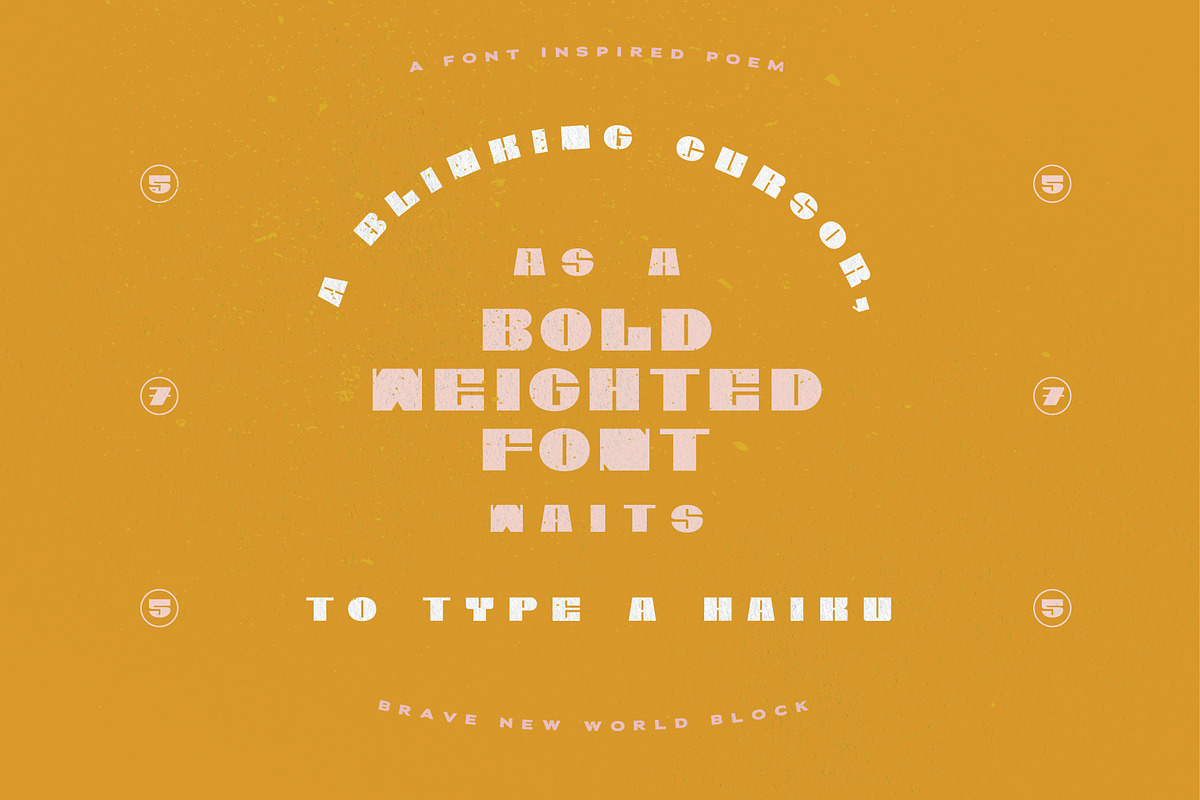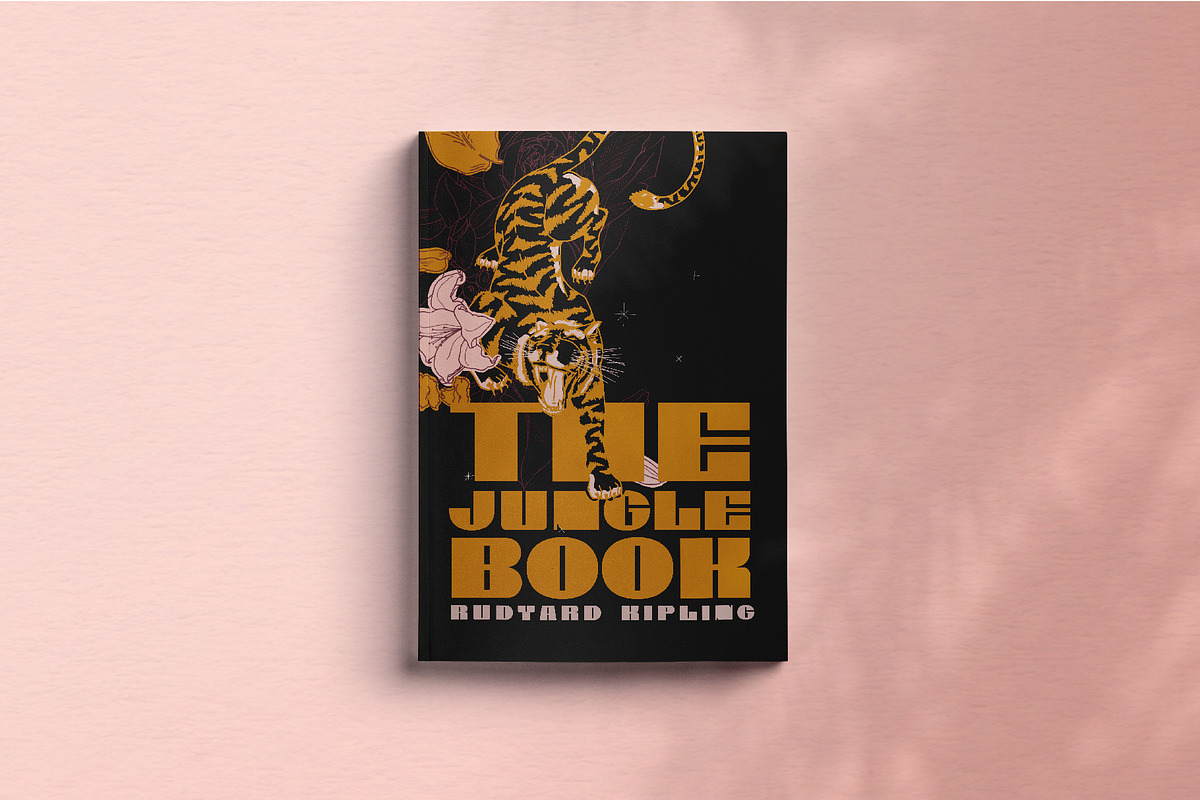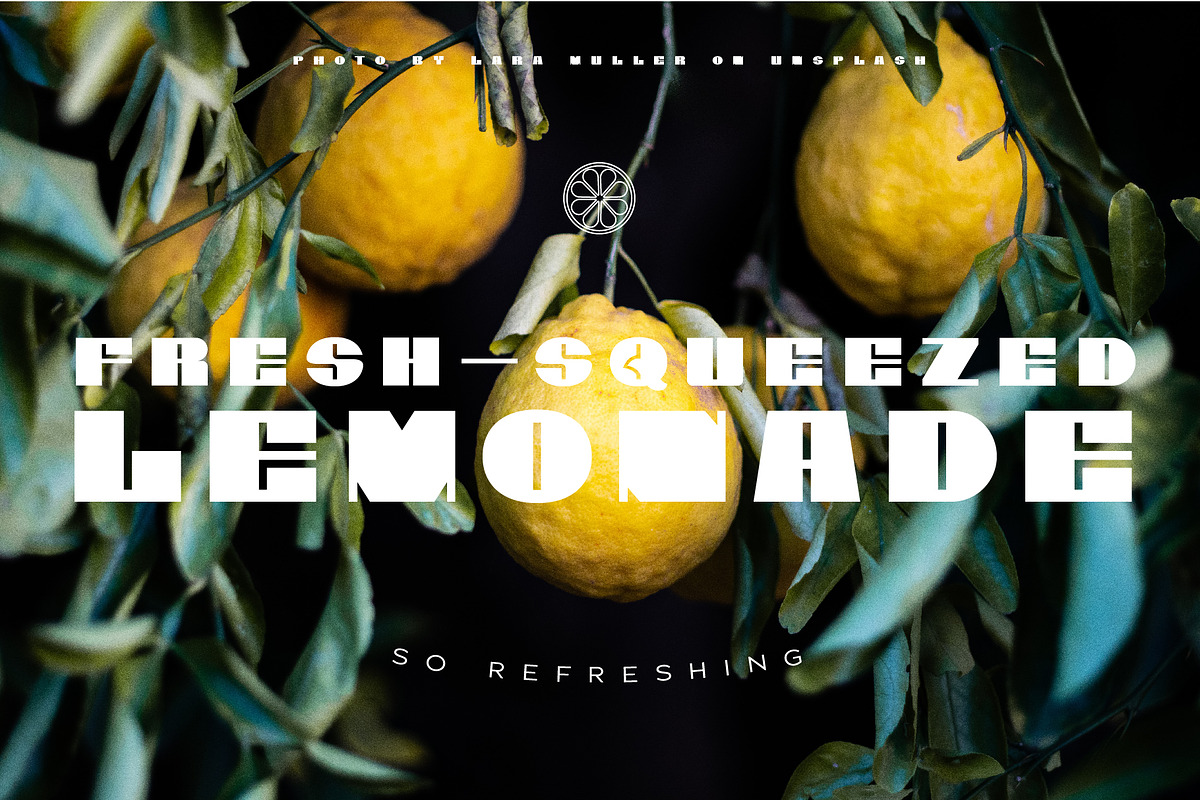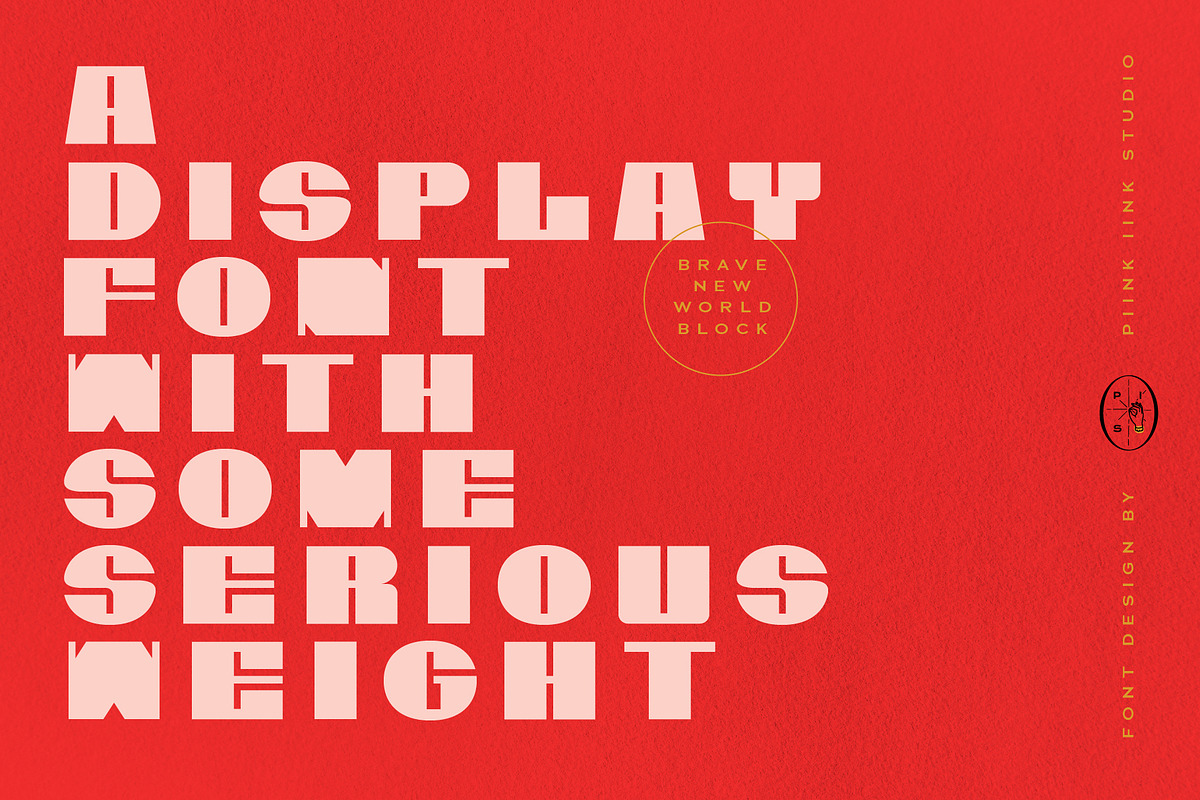
Brave New World Block - Font
A super bold font with some serious weight and some serious versatility. Brave New World Block is a one-weight display font that can look fun, loud, or even vintage. Brave New World Block has set out to explore! See what Brave New designs you can create... Includes file formats .otf and .woff
Brave New World Block - Font by PiiNK iiNK STUDiO fits naturally into Branding, posters, packaging, typography.